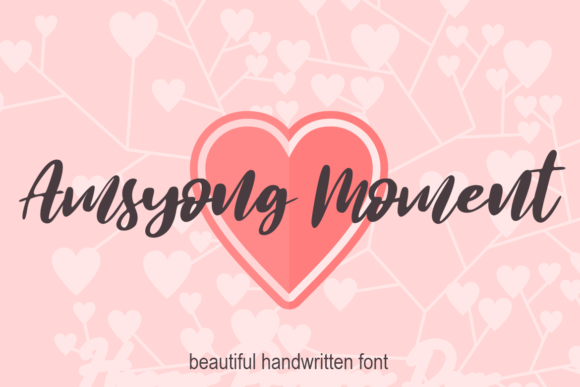
Introduction to Amsyong Moment Font
Amsyong Moment is a cute script font.
It features an incredibly classic style, while still keeping a friendly feel This font constitutes the perfect option for making original and outstanding designs.